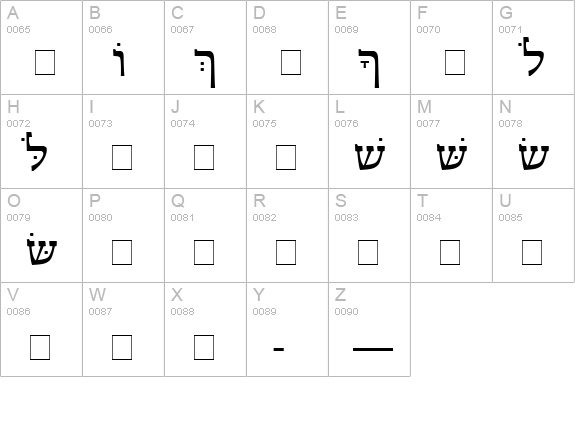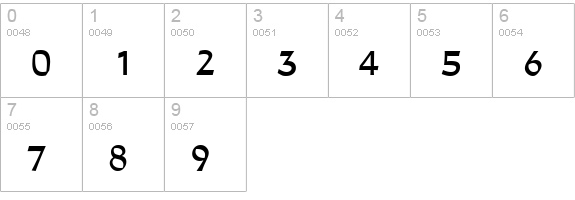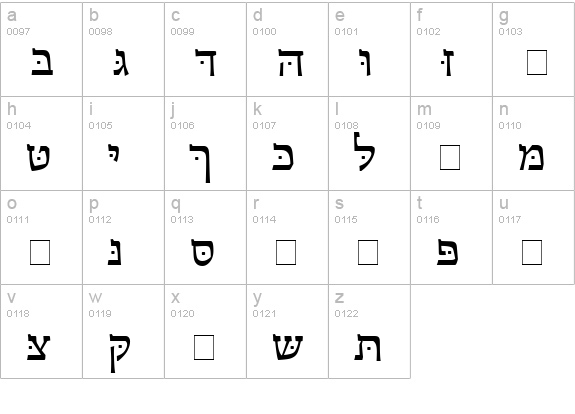
Monotype Hadassah Font Details
Monotype Hadassah is a sophisticated and elegant font that exudes a sense of timeless beauty and refinement. With its delicate serifs and graceful curves, this typeface is perfect for projects that require a touch of class and sophistication. Whether used for invitations, branding, or editorial design, Monotype Hadassah effortlessly adds a touch of elegance to any project. What sets Monotype Hadassah apart is not just its stunning design, but also its availability as a free download. Yes, you read that right - this exquisite font is freely available to download at FontsMarket.com. So go ahead and add a touch of luxury to your projects with Monotype Hadassah, without breaking the bank. Download it today and elevate your designs to new heights!